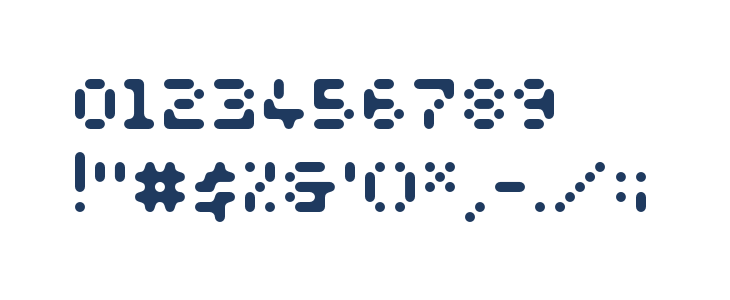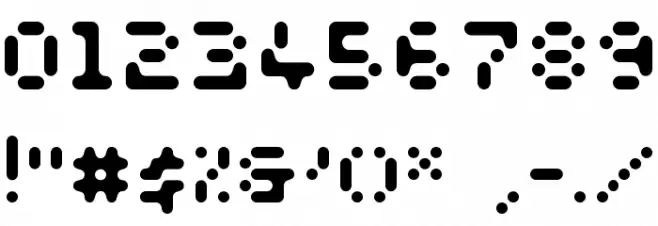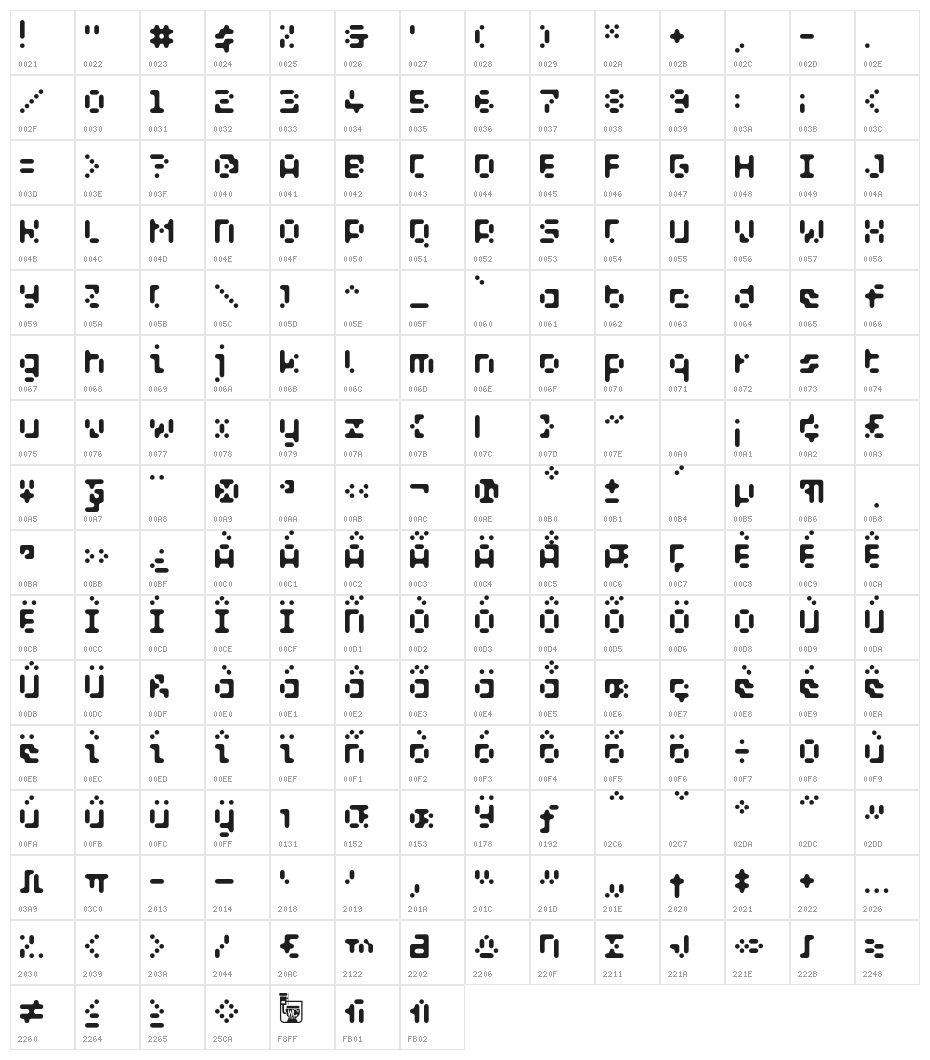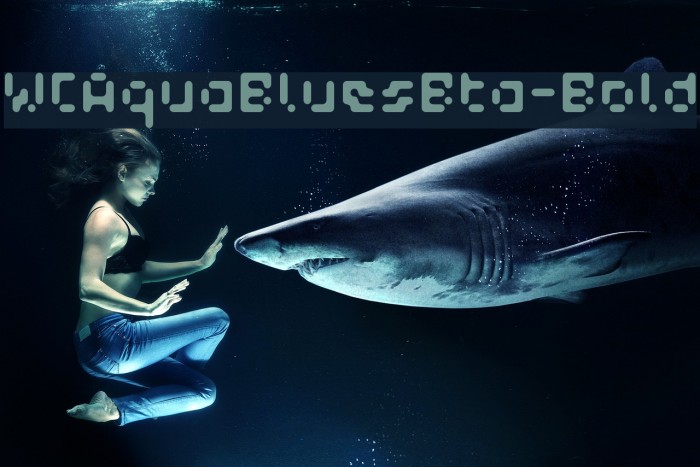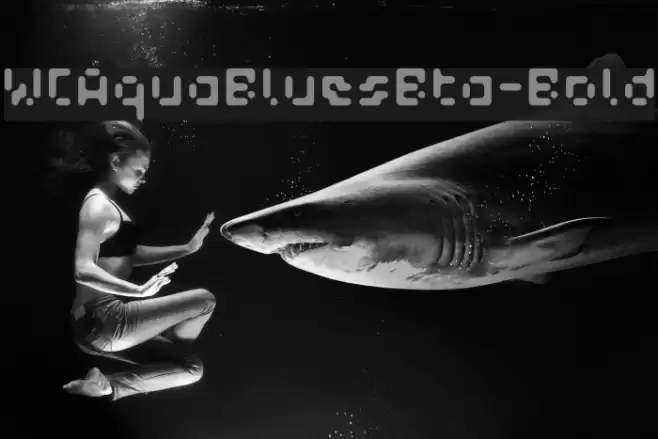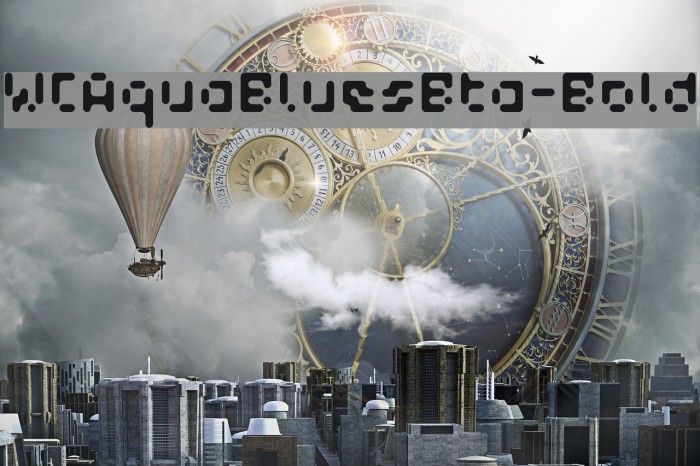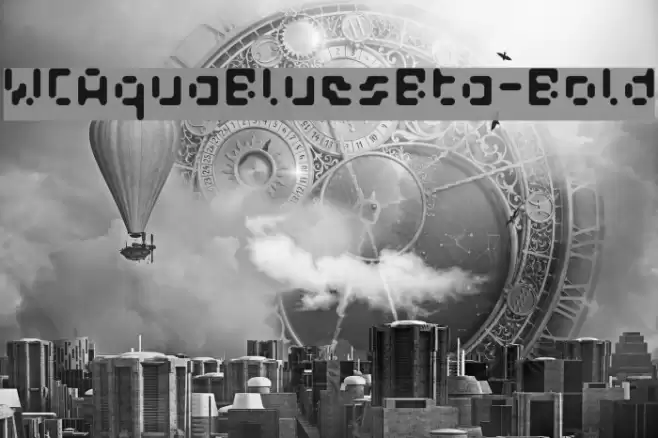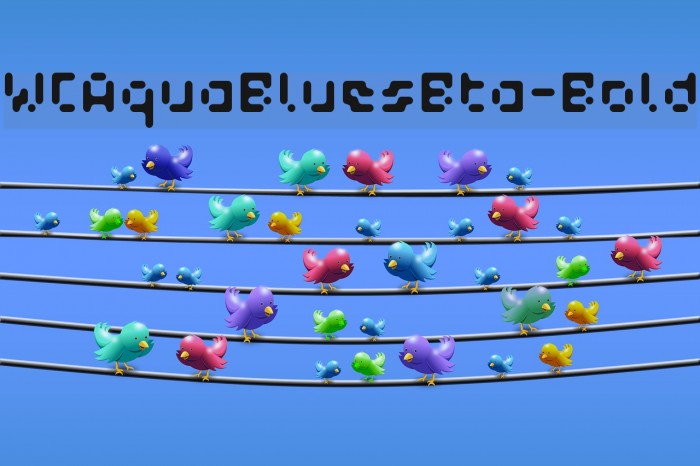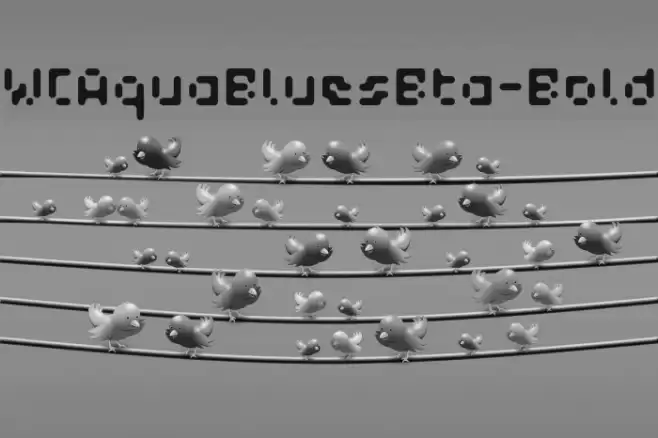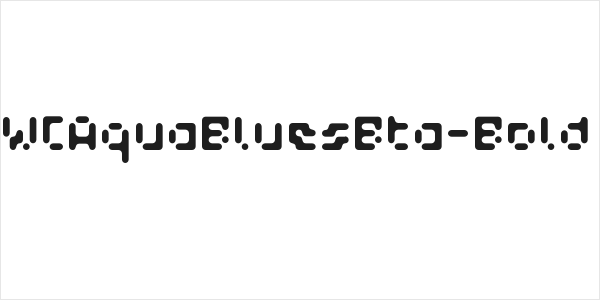
WCAquaBluesBta-Bold Font
WCAquaBluesBta-Bold Description
This font features a bold, futuristic design with a distinct geometric style. Each character is formed with a series of rounded, block-like shapes that create a sense of modernity and innovation. The font's unique structure is characterized by its use of negative space, giving it a digital and technological feel. The uppercase and lowercase letters maintain a consistent style, while the numerals and special characters complement the overall aesthetic. This font is ideal for projects that require a contemporary and eye-catching look.
| Proposed Projects | Ideal for technology branding, modern posters, digital interfaces, and innovative product packaging. |